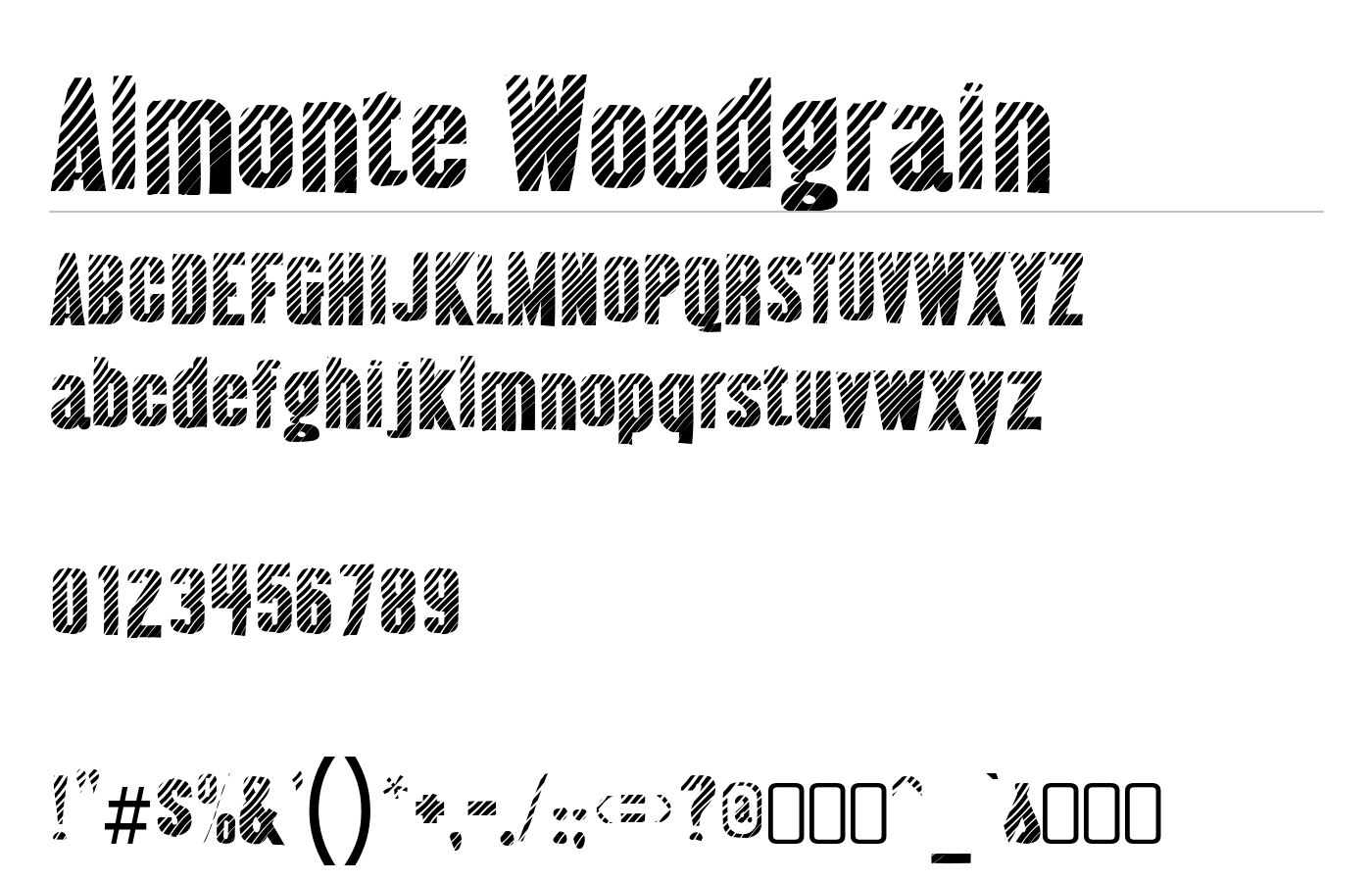
Almonte Woodgrain is a bold, condensed sans serif font characterized by its unique diagonal woodgrain texture that adds a rustic yet modern feel. Its tall x-height and strong vertical stress make it highly impactful for headlines or branding that aims to stand out with a handcrafted, vintage-inspired personality. This font works particularly well for posters, packaging, and logos where a bold decorative style is desired.
| Font family | Almonte Font |
| Designer | Raymond Larabie |